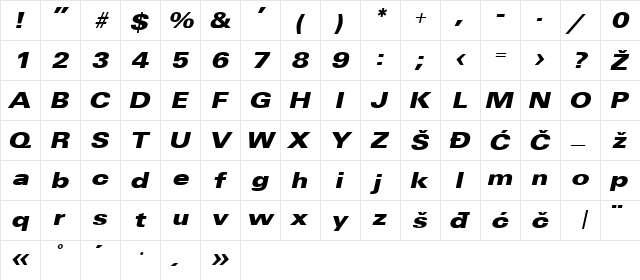
Universans830_PP Bold Font Preview
Universans830_PP Bold
Design Context for Universans830_PP Typeface
Universans830_PP takes a measured approach to typography — its balanced proportions and neutral character make it a reliable workhorse for both digital and print work. Its bold stroke weight gives it real presence on the page.